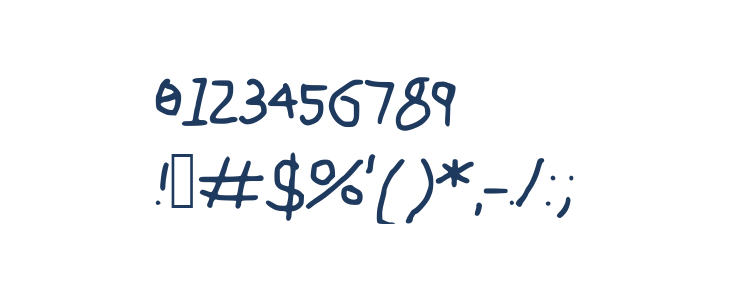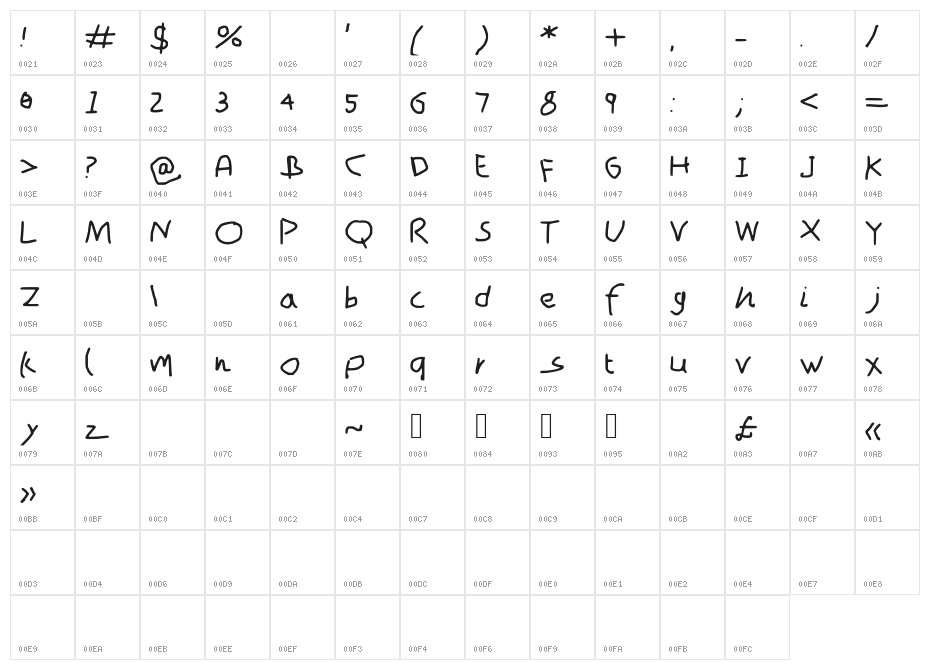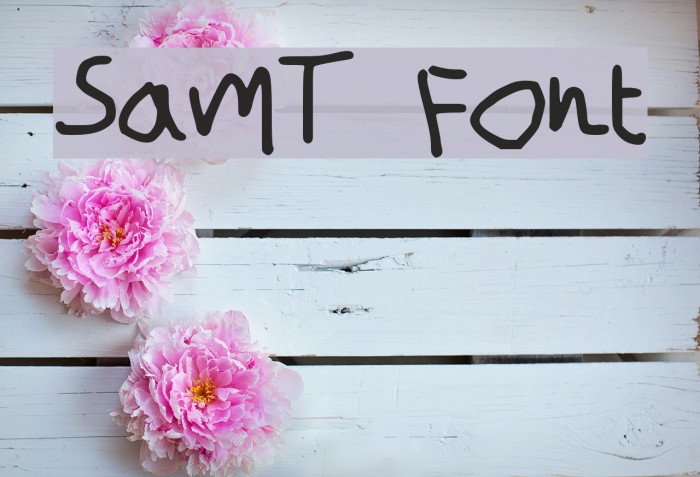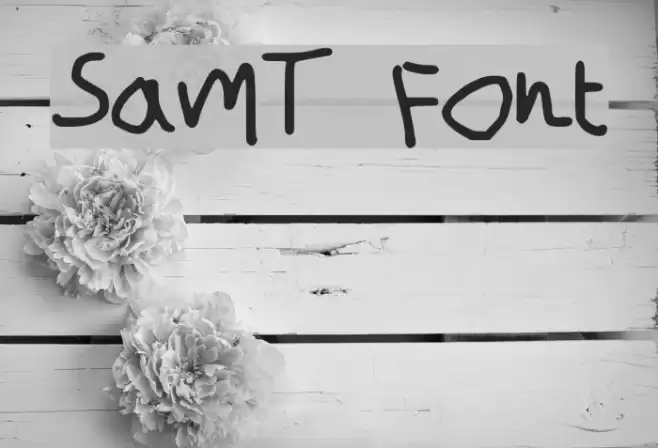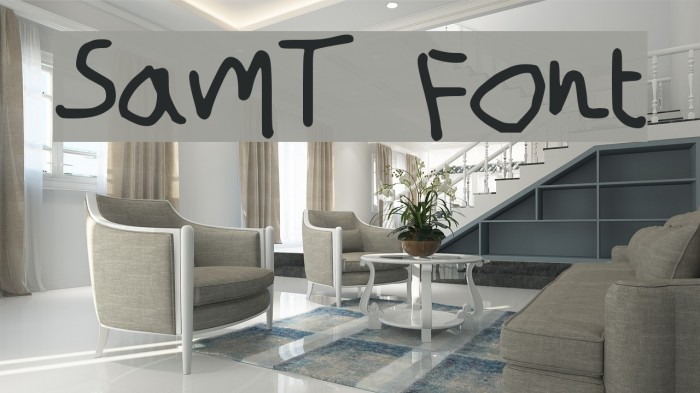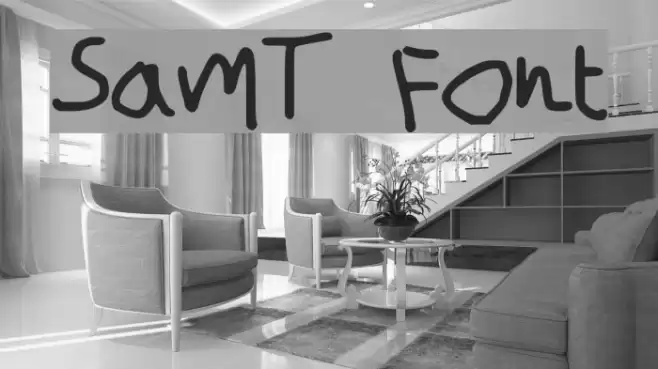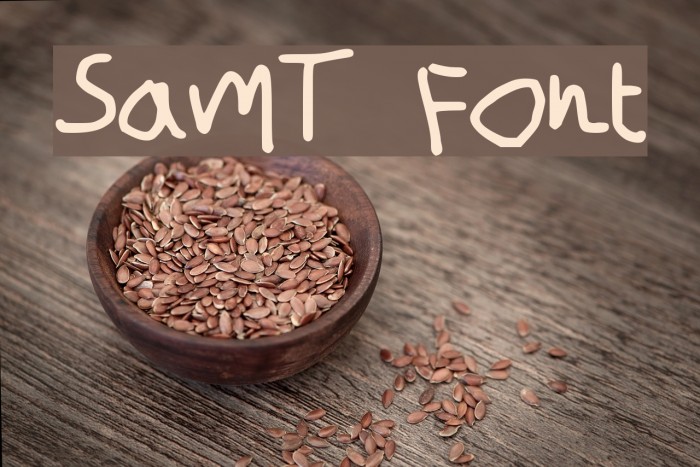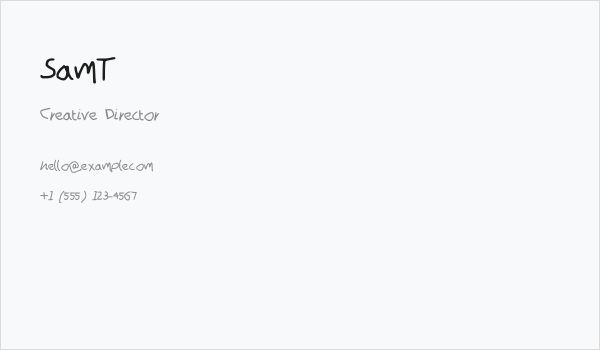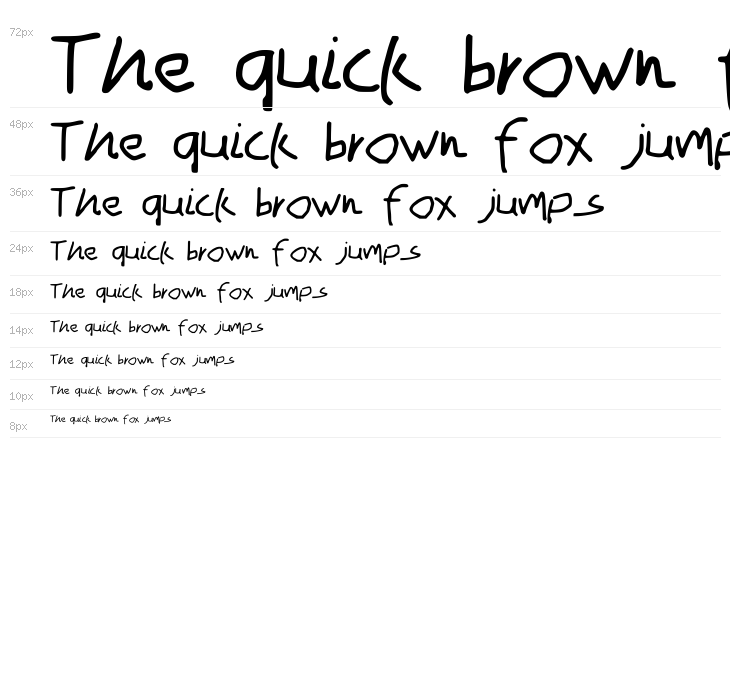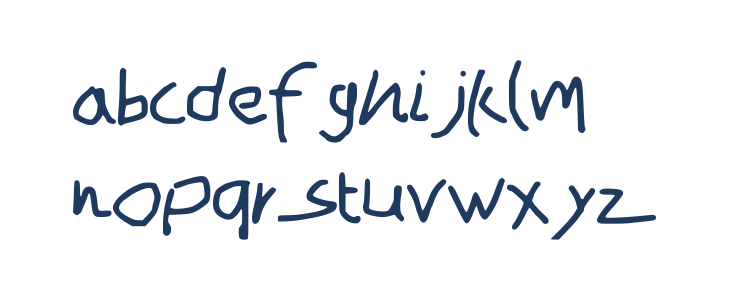
SamT Font
SamT Description
This font features a playful and casual handwritten style, characterized by its irregular and organic strokes. The letters are slightly tilted, giving a dynamic and informal appearance. The uppercase and lowercase letters maintain a consistent flow, while the numbers and special characters complement the overall aesthetic. The font's design is approachable and friendly, making it suitable for projects that require a personal touch. Its unique style can add a sense of warmth and creativity to any design.
Overall StyleCasual
Use CaseHeadlines, Logos, Informal Text
Proposed ProjectsIdeal for greeting cards, personal invitations, children's books, and creative branding.